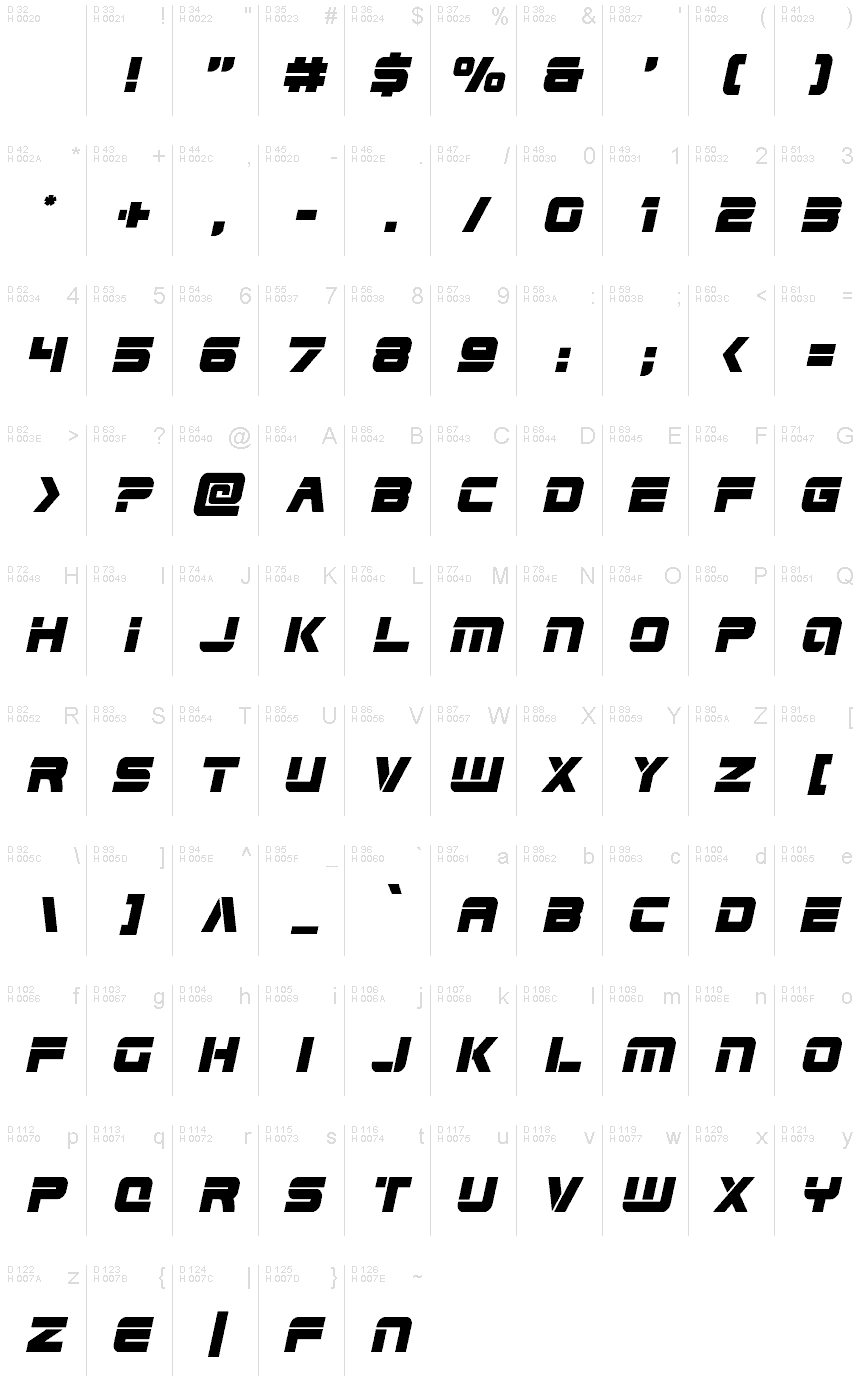
Edge Racer Title Italic
Edge Racer Title Italic font is a futuristic display typeface presented by Iconian Fonts. This is an expanded bold typeface with angular features, an energetic vibe, and a geometric design. Its sharp characters are high-tech oriented and would definitely fit into any modern design approach.